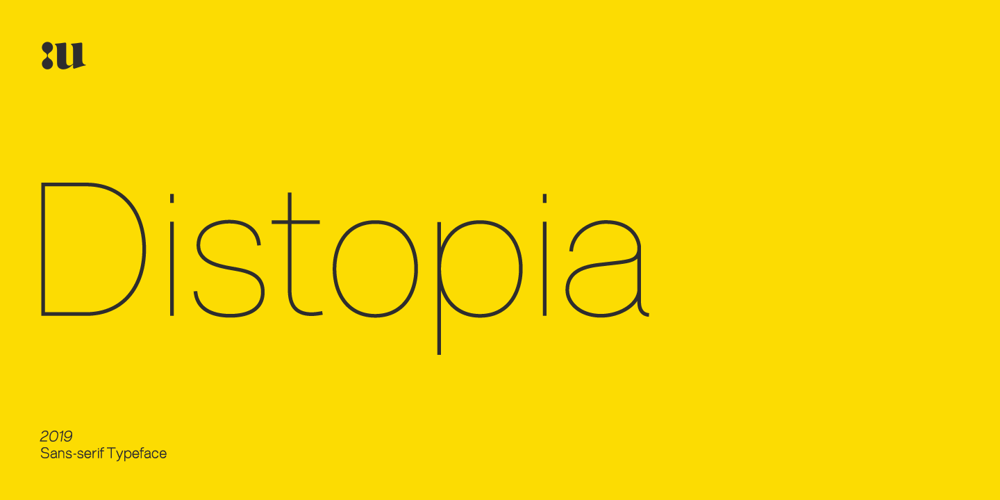
Distopia Font Family was designed by Nicola Manzari and published by Unio Creative Solutions. Distopia contains 4 styles and family package options. Distopia is a contemporary type system which focus on clarity and legibility, developed in two weights with true matching italics. Distopia includes, as previously said, two contrasting versions: Light and Regular with corresponding true italics. This font family combines modernist shapes with slight grotesque touches. Each variant was designed with an attentive optical evaluation; curves, details and spaces were specifically tweaked to better suit the requirements of a highly-legible typeface. The end result is a family with full multilingual capabilities and a coverage of several languages based on the Latin alphabet; Distopia aims to become your next typographic companion. Specifications: – Files included: Distopia Light, Distopia Regular with corresponding true italics – Multi-language support (Central, Eastern, Western European languages) – OpenType features Thanks for viewing, Unio.